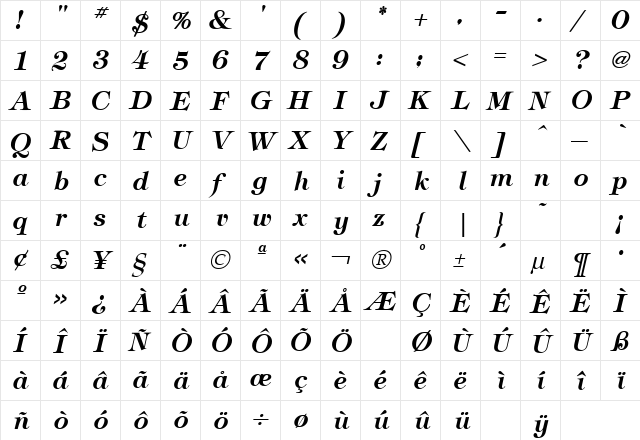
Tiffany Bold Italic
Design Context for Tiffany Typeface
Tiffany is a composed and adaptable typeface that performs quietly and consistently across a wide range of design contexts. Its italic angle brings a sense of urgency and motion to the letterforms. The heavy weight commands attention and anchors typographic hierarchies.
Pro Tip: Use Tiffany for emphasis, pull quotes, and subheadings where its slanted energy can add rhythm to the layout.